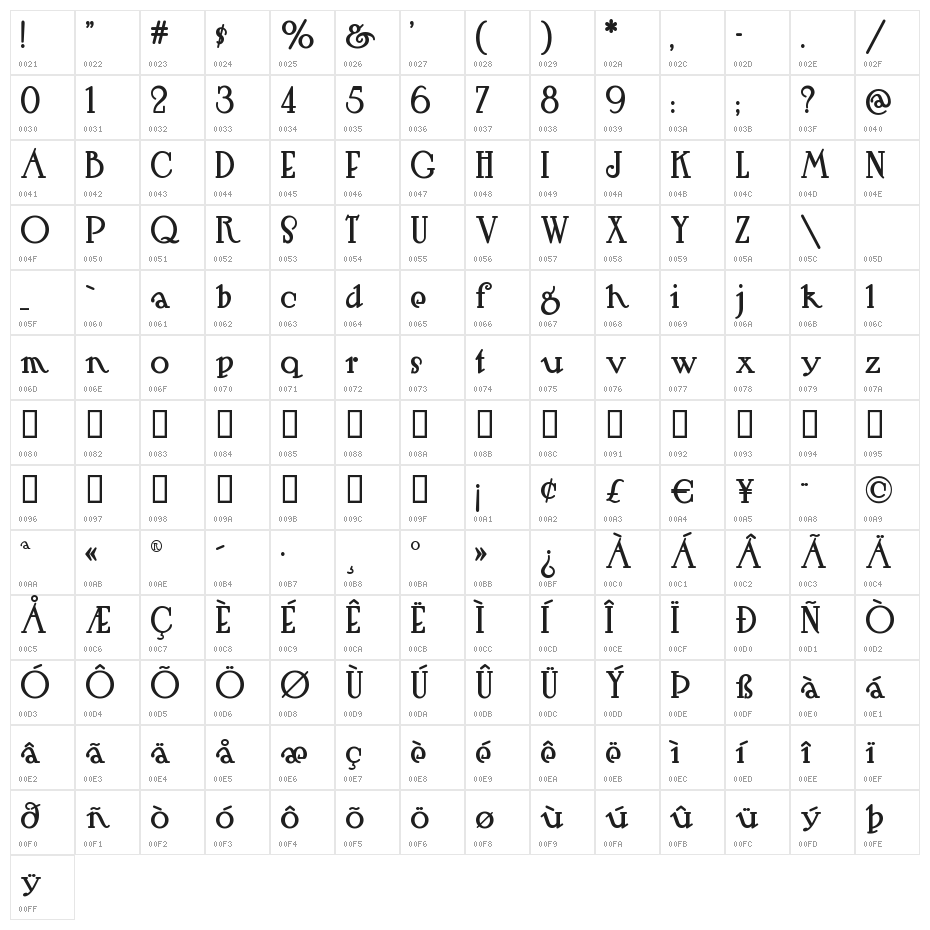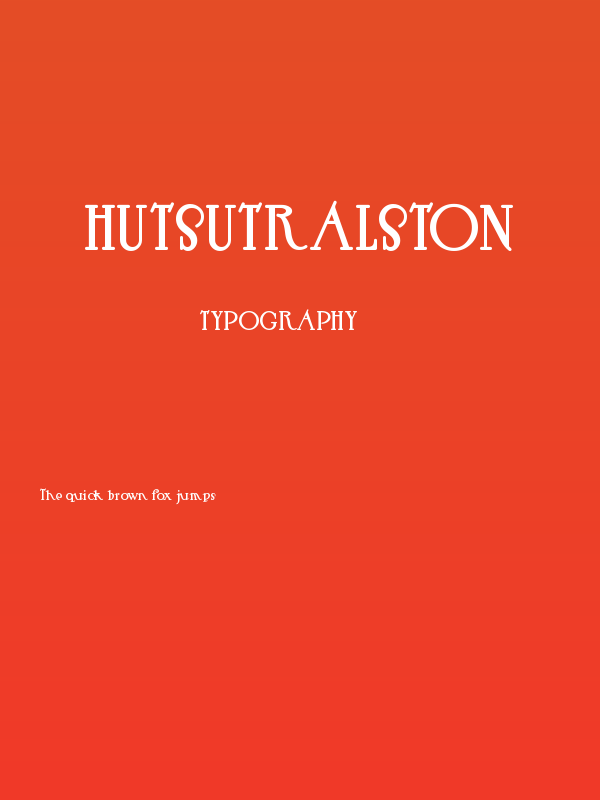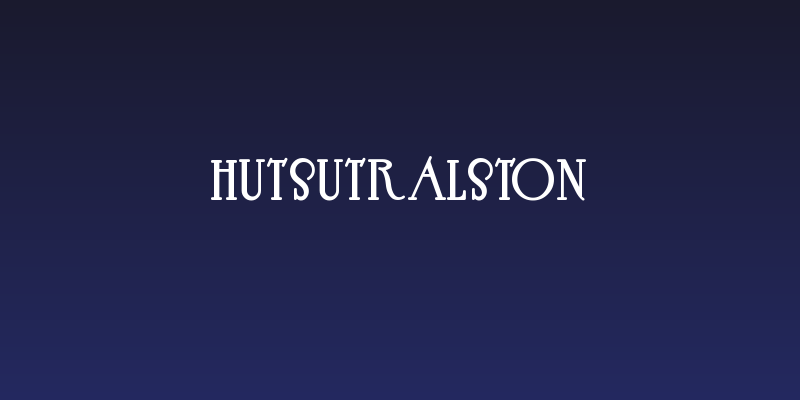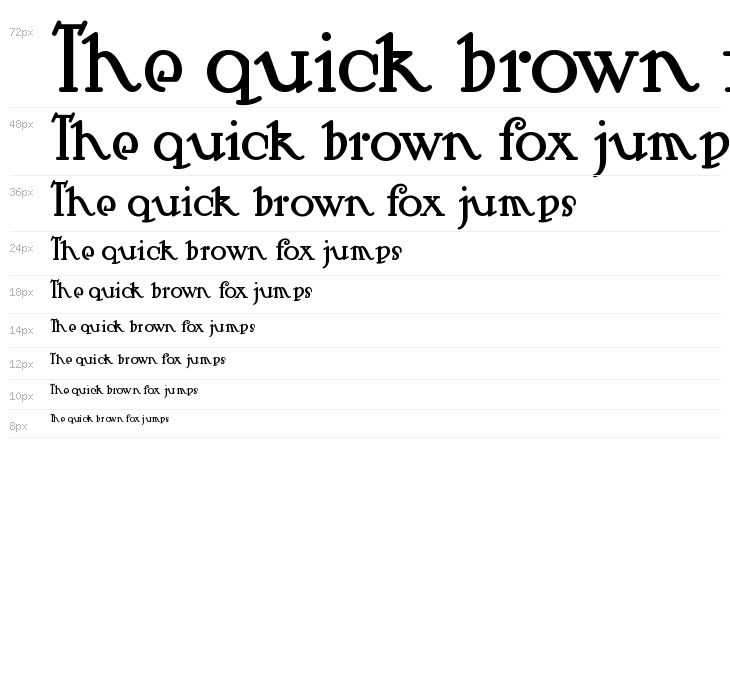
HutSutRalston Font
HutSutRalston Description
This font features a whimsical and playful style with a touch of elegance. The uppercase letters are characterized by their unique curves and slight flourishes, giving them a distinct personality. The lowercase letters maintain a consistent style, with some characters exhibiting playful loops and swashes. The numbers are bold and clear, ensuring readability while maintaining the font's overall charm. Special characters are designed with the same attention to detail, making them fit seamlessly with the rest of the font. The overall design is both decorative and functional, suitable for a variety of creative projects.
| Proposed Projects | Ideal for invitations, greeting cards, children's books, and playful branding projects. |